1. Space Grotesk
Space Grotesk is a proportional sans-serif typeface variant based on Colophon Foundry’s fixed-width Space Mono family. Originally designed by Florian Karsten in 2018, Space Grotesk retains the monospace’s idiosyncratic details while optimizing for improved readability at non-display sizes. It supports a wide range of languages.
Although Space Grotesk wasn’t designed with titling in mind, its bold version looks wonderful at large sizes and could be used as a header font anytime.
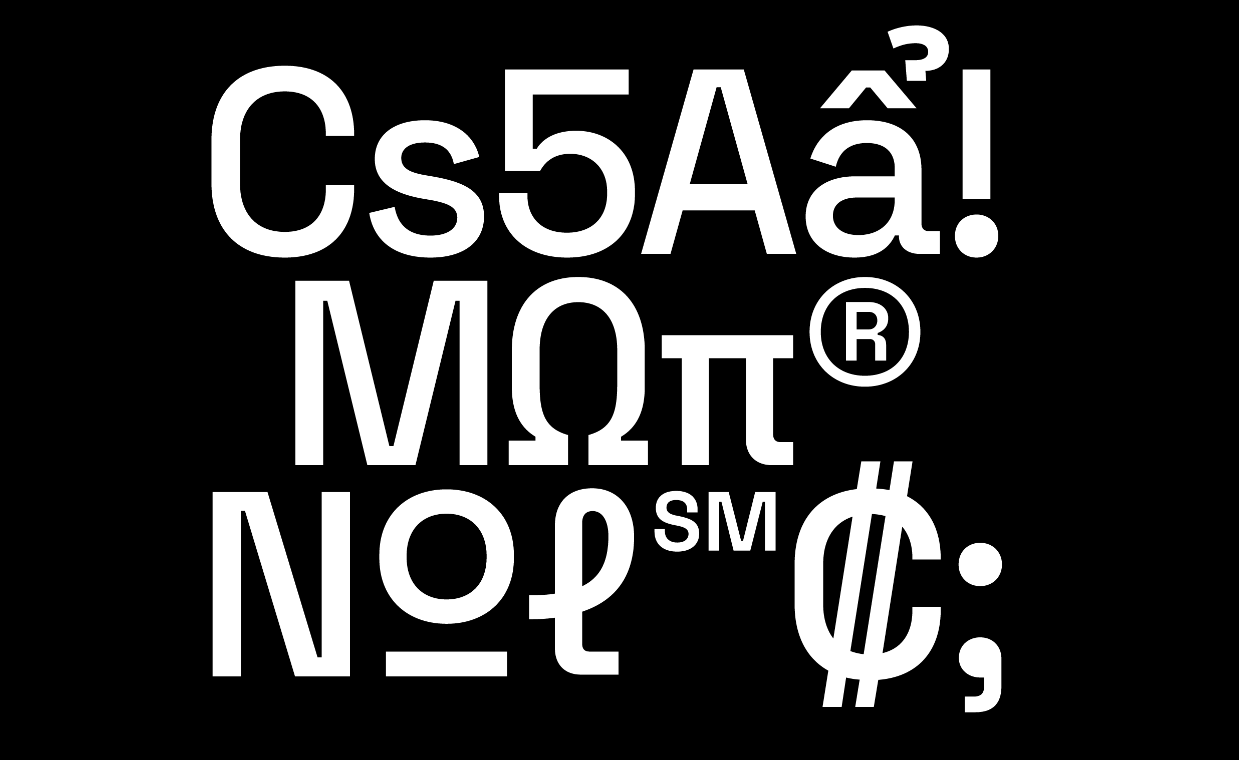
2. Ostrich Sans & Ostrich Sans Inline
With its narrow and elegant style, Ostrich Sans is an amazing typeface for headlines. Its main feature is probably the large number of styles. It comes with the following variants: Dashed (thin), Rounded (medium), Ultra light Normal Bold (race track style double lines), Black Inline (with italics), and Heavy (round). It can be downloaded from this page on Github.
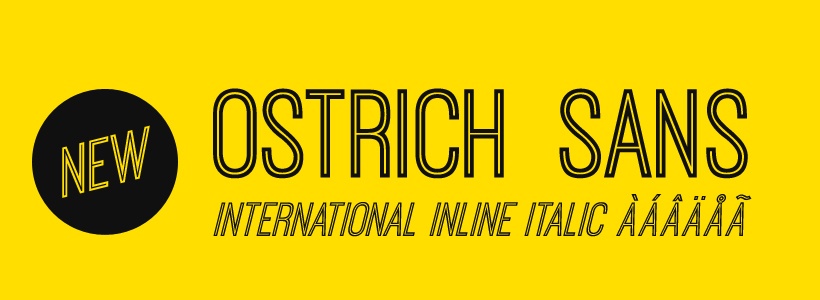
3. Puffy
Puffy is a bubble display font that mimics the look of bubbles or round circles to create an eye-catching and playful display. The font consists of letters, numbers, and symbols that are designed to appear as if they are inflated or made up of multiple small bubbles. You can download it from Fontesk.
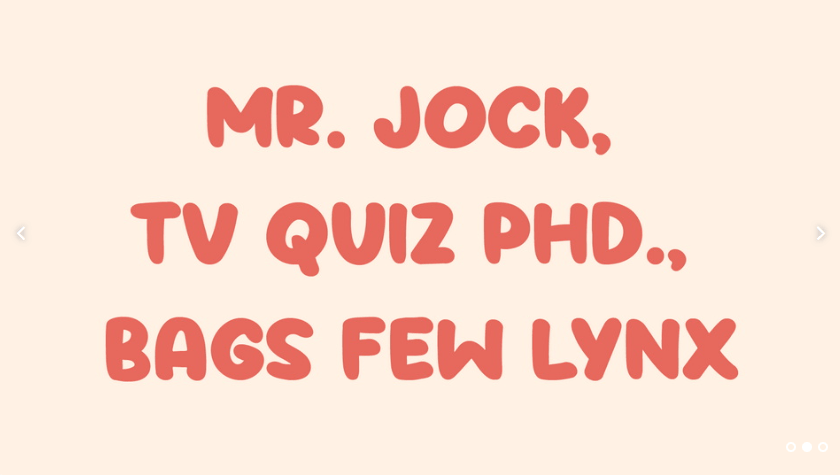
4. League Gothic
League Gothic is a revival of an old classic, Alternate Gothic #1. It was originally designed by Morris Fuller Benton for the American Type Founders Company in 1903. The company went bankrupt in 1993, and since the original typeface was created over 95 years ago, the typeface is in the public domain, which allowed the League of Movable Type to create a digitalized version of it: League Gothic. In all caps, it gives your designs a clean and dense look-and-feel for your headlines.
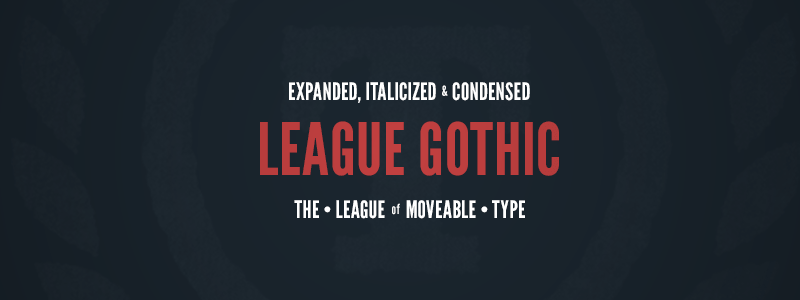
5. Object Sans
Object Sans is a contemporary type family that puts together the best qualities of Swiss neo-grotesks and geometric fonts. It’s a multifunctional workhorse designed to work best in any printed and on-screen contexts, including logo design, brand identities, websites, packaging, posters and headlines; regular weight is carefully tuned for small sized body text. The typeface comes in 7 weights, upright and slanted each. Object Sans is an evolved and improved version of Objectivity typeface.
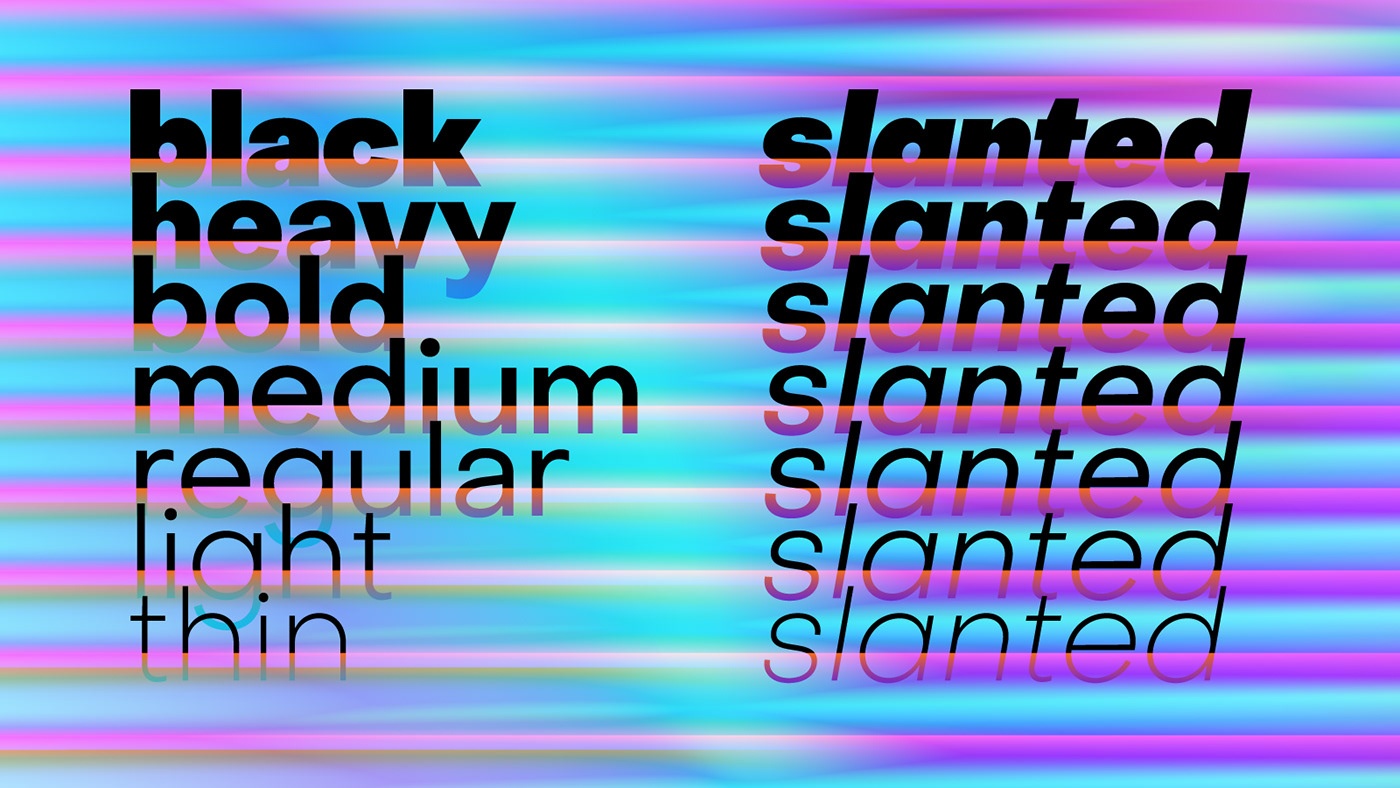
6. Nouveau
Nouveau is an Art Nouveau inspired revival of a type specimen found in several issues of a local colonial-era publication, Straits Times Annual in the 1900s. Nouveau’s idiosyncratic typographical flairs speculate how Singapore’s typographic history can be reinterpreted through the practice of type design. Download it for free on Fontesk.
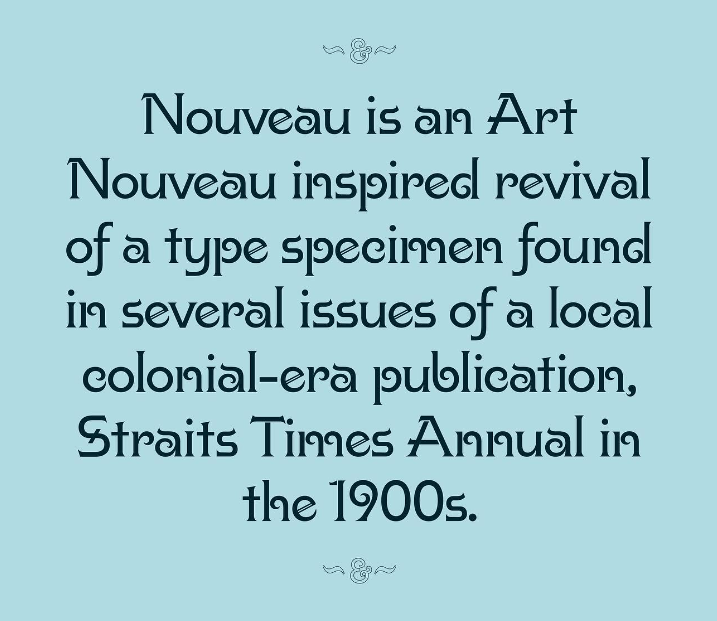
7. Pixelcastle
With an unusual combination of pixel art and old-school letters, Pixelcastle could be an interesting choice as a font for headlines.
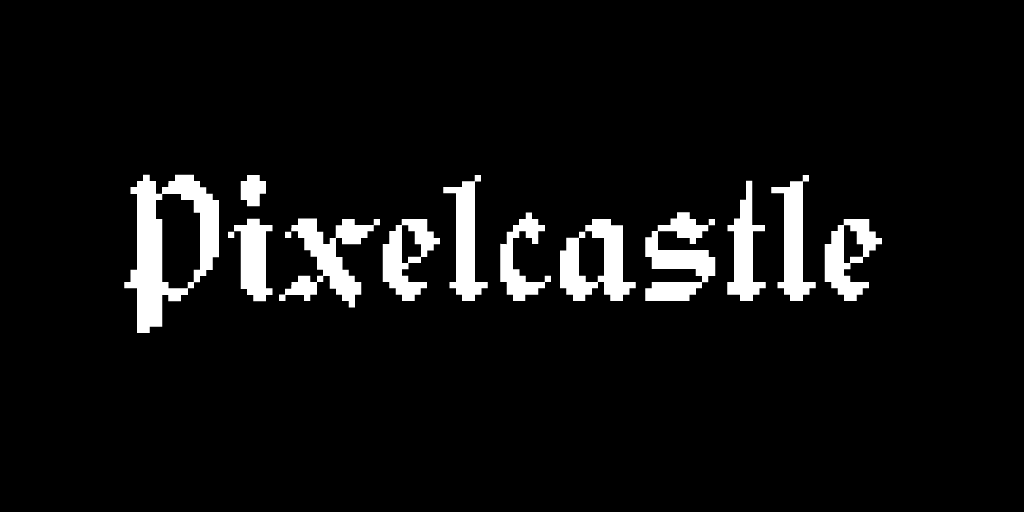
8. Nabla
Nabla is an isometric color font that showcases unprecedented possibilities and customization, allowing you to create bold and vibrant designs. Inspired by vintage computer games and using the isometric cube as a starting point, it goes beyond pixel-lettering, creating new lettershapes suitable for the technology of today. You can download it from this Typearture mini-site.
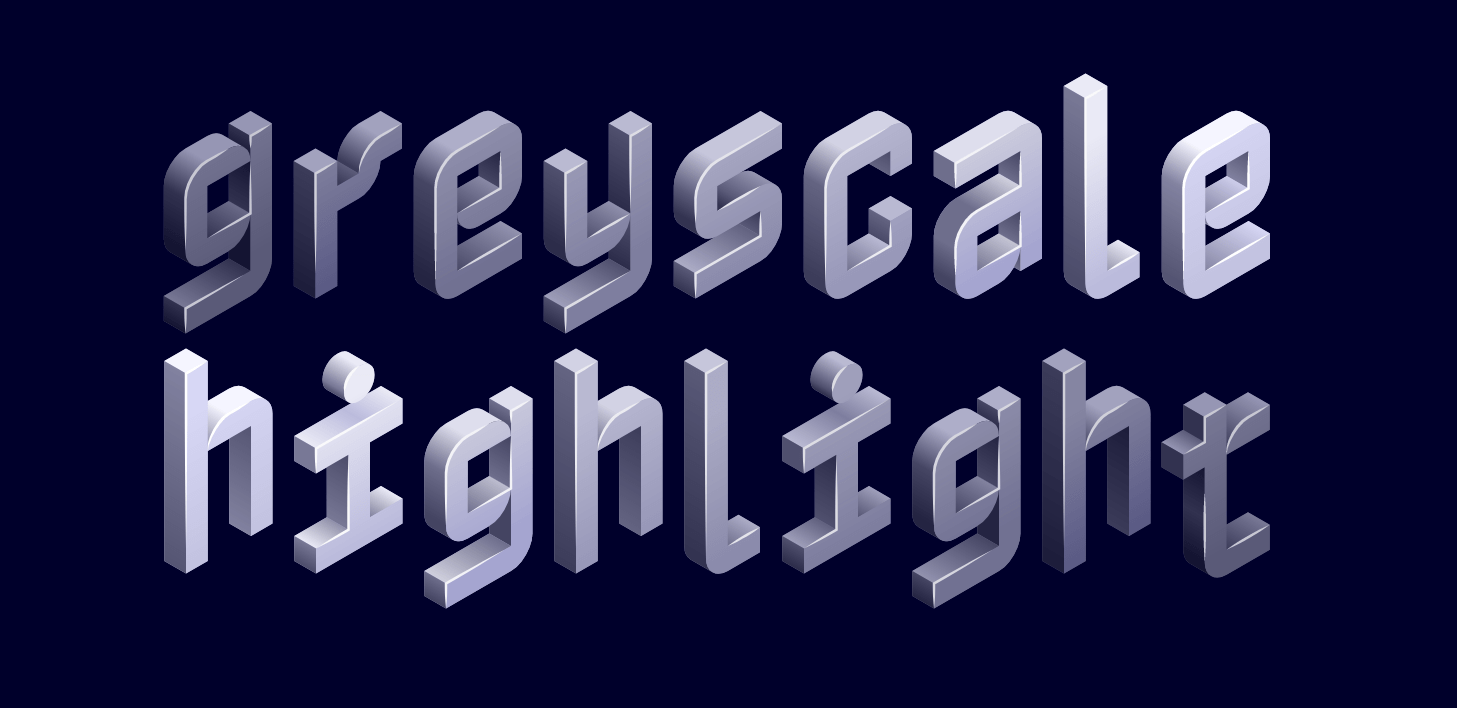
9. Fatbrush Script
If you need a headline font that looks a bit more organic and messy, look no further, Fatbrush Script is here for you. This unique and simple handwritten font with special characters can be downloaded here.
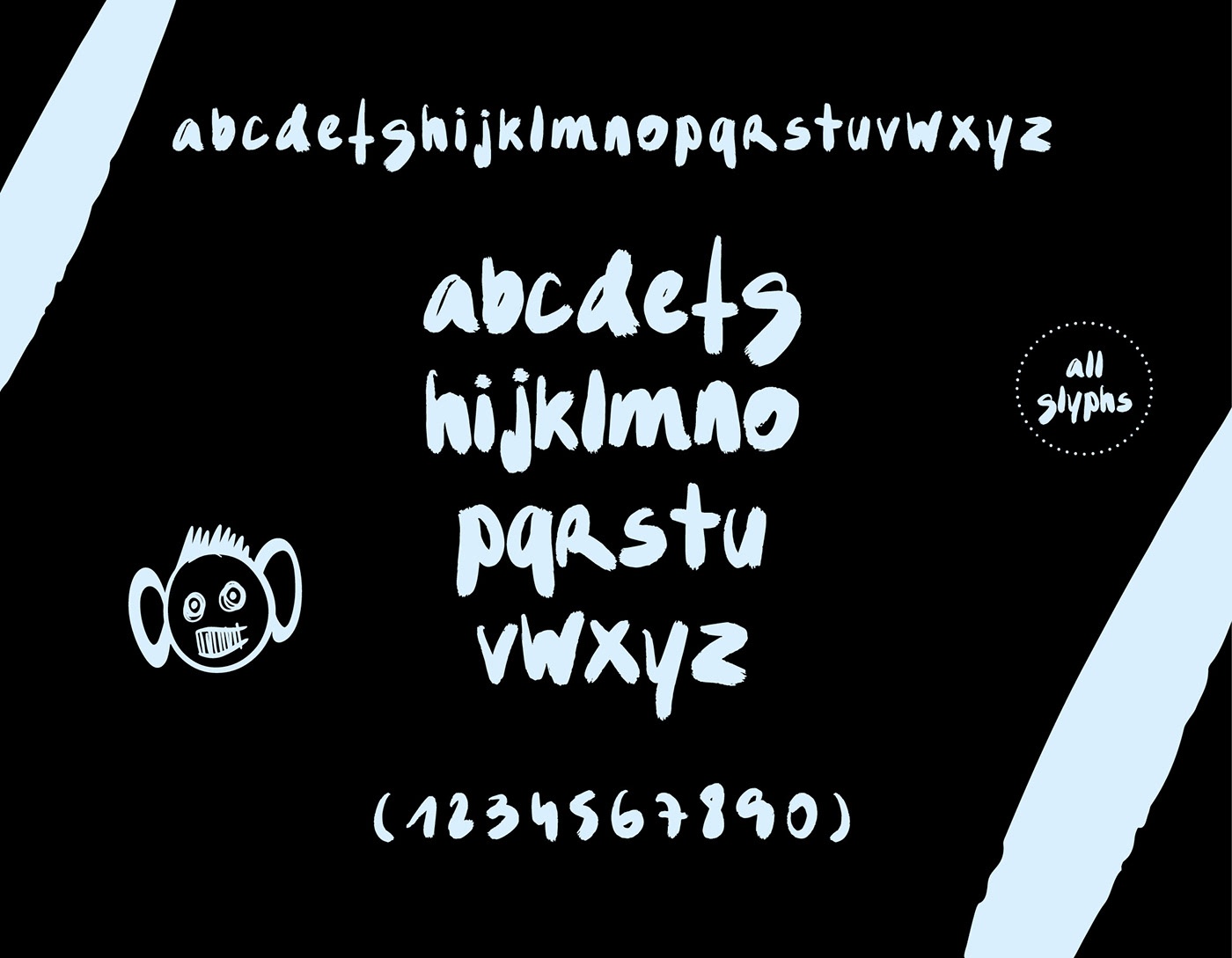
10. Sunday Paper
Sunday Masthead, as its name suggests, was designed as the font for headlines of the Sunday Paper. It has a limited number of characters, but it comes with plenty of other fonts as part of the Sunday Paper fonts.